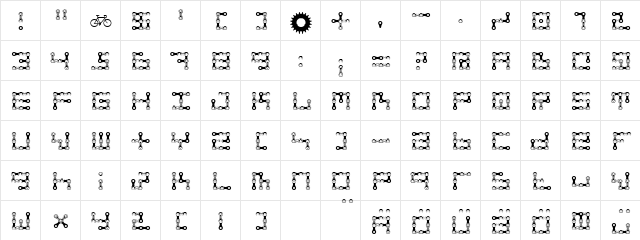
FK Chain Regular Free Font
FK Chain Regular
Designer: JUM
Design Context for FK Chain
FK Chain is a composed and adaptable typeface that performs quietly and consistently across a wide range of design contexts.